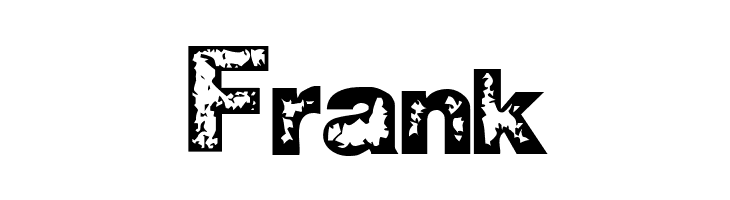
CK Becky Font
- Font: CK Becky
( Fonts by pOPdOG fONTS - Dimitris Kolyris - popdog_fonts.tripod.com Commercial Fonts Font )
A bold, textured font with a distressed, grunge aesthetic.